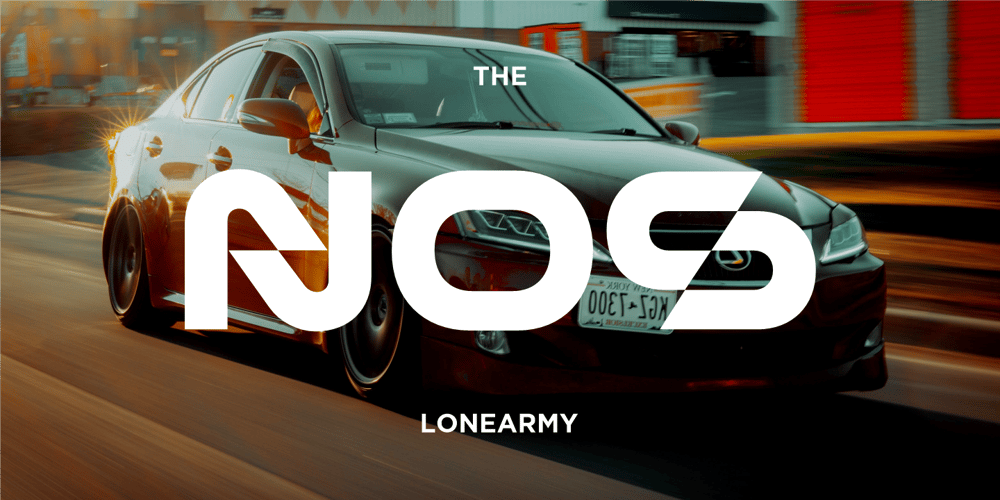
The Nos Font Family was designed by Alfin Weniardi and published by Lone Army. The Nos contains 1 styles and family package options. The NOS font embodies sleek, dynamic lines mirroring the speed and energy of modern sports racing. Its bold typography captures the essence of velocity, with sharp, futuristic contours that evoke a sense of adrenaline-fueled motion.